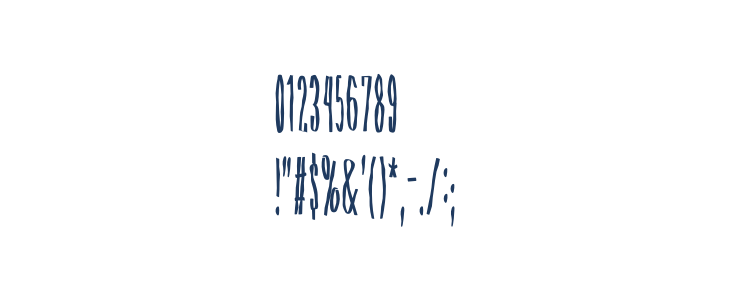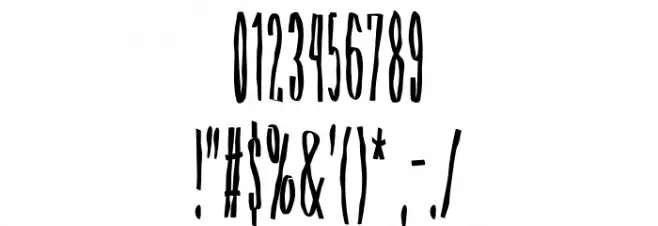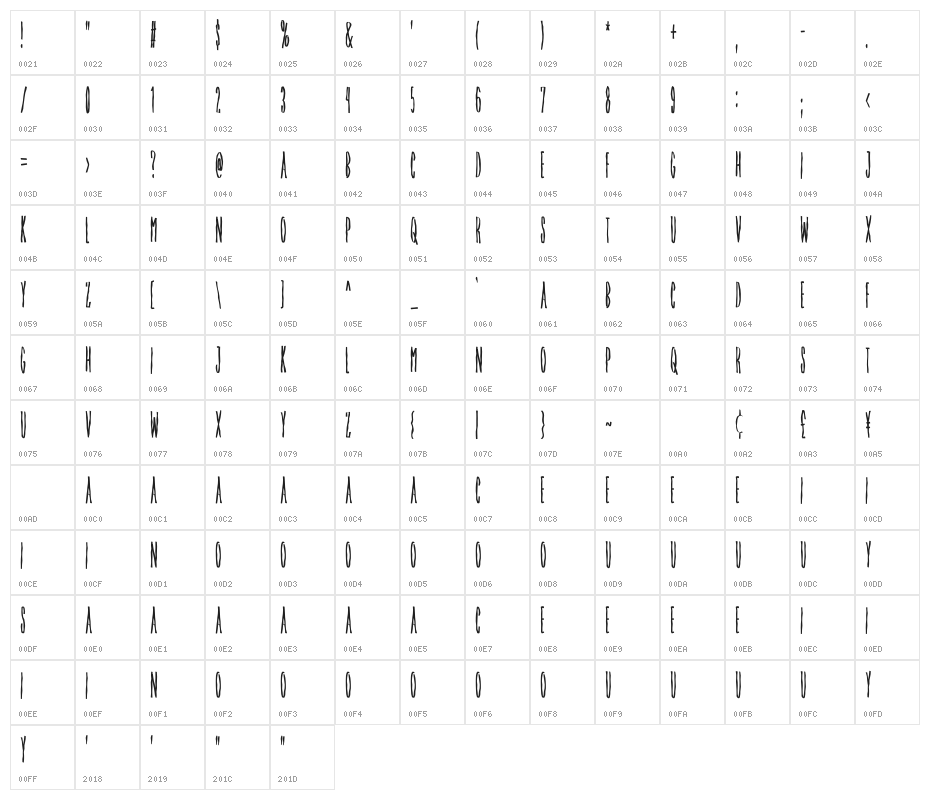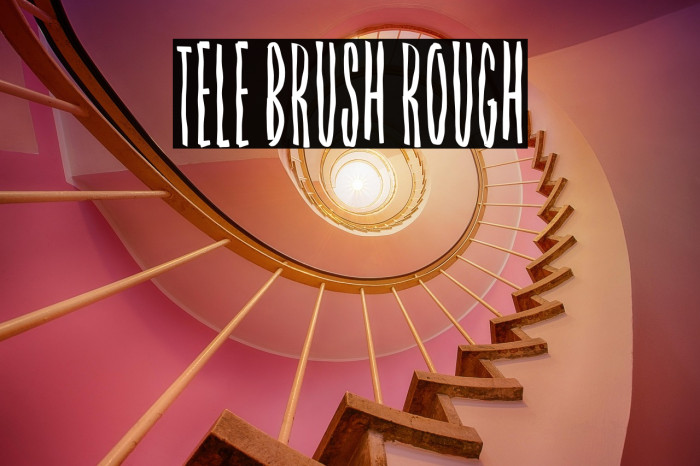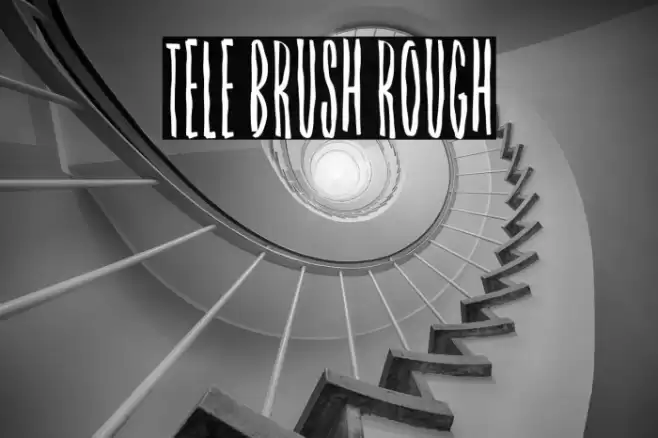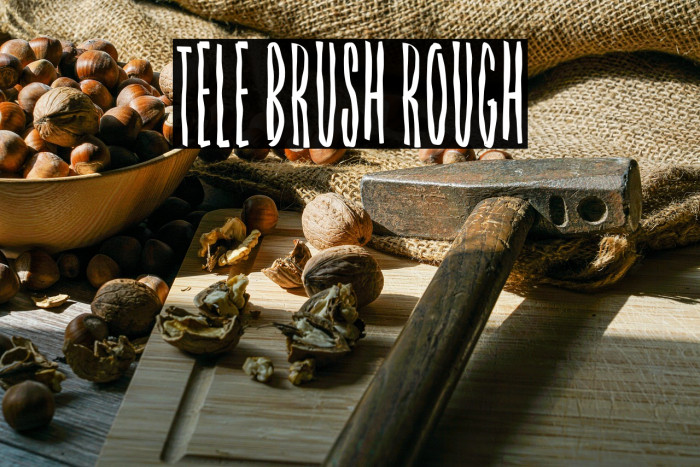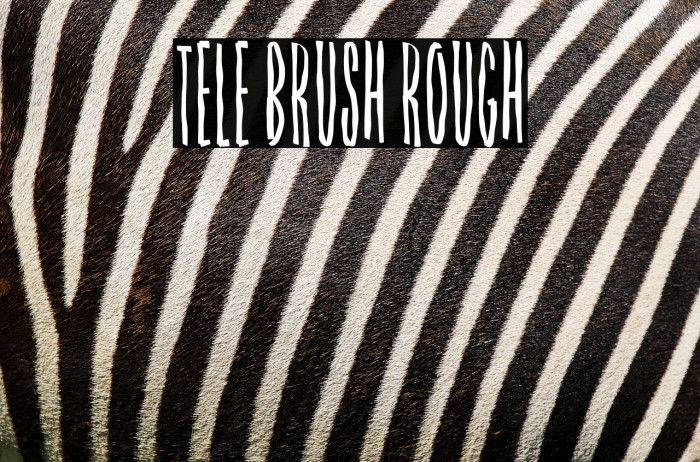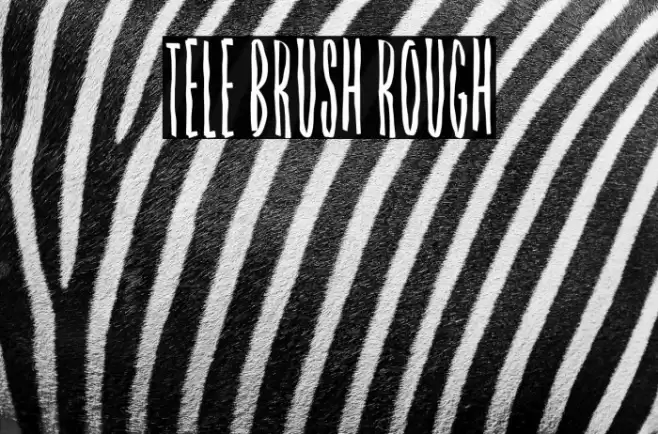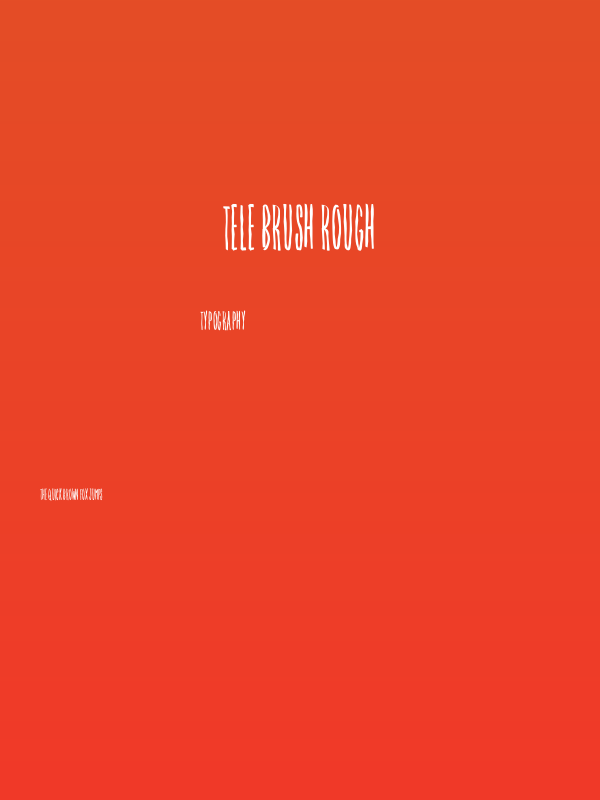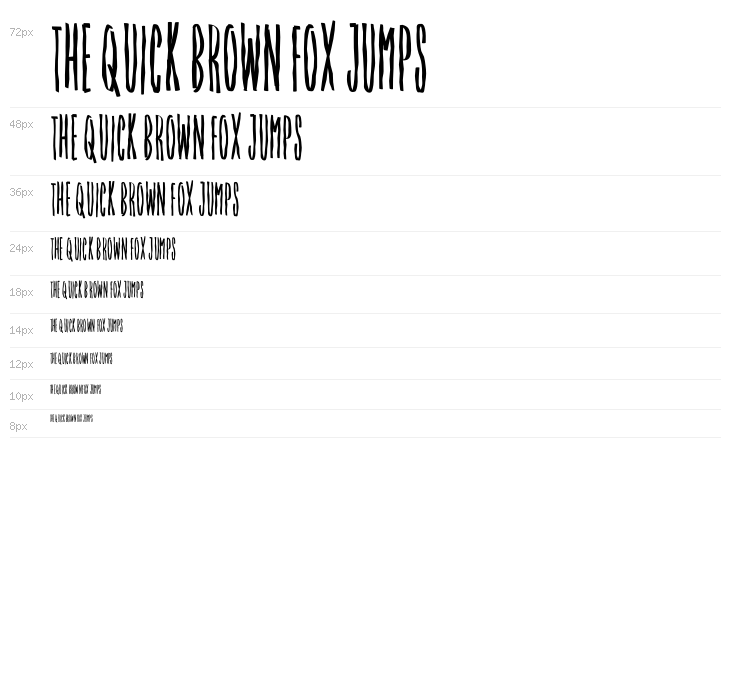
Tele Brush Rough Font
Tele Brush Rough Description
This font features a distinctive brush-like texture, giving it a rough and artistic appearance. The characters are tall and narrow, with irregular edges that add a hand-drawn feel. The uppercase and lowercase letters maintain a consistent style, with a slightly condensed form that enhances its unique look. Numbers and special characters follow the same design principles, ensuring uniformity across all glyphs. The font's organic and dynamic strokes make it stand out, ideal for creative projects that require a bold and expressive typeface.